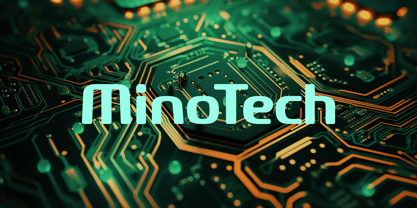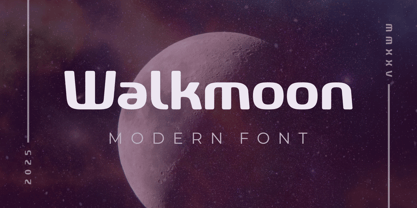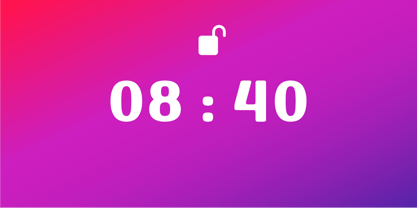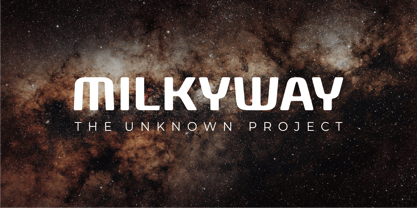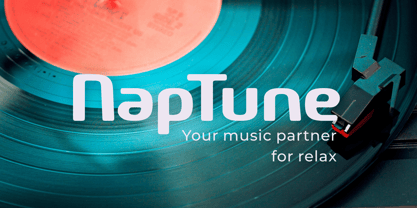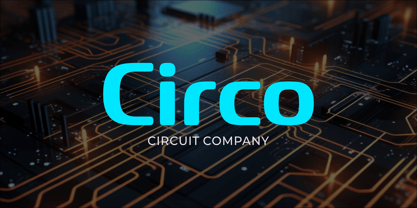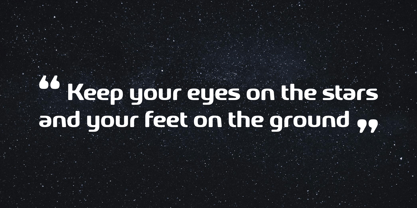
Walkmoon
The Walkmoon Font Family was designed by Anthonie Van Hayu and published by ARToni. Walkmoon contains 1 styles. More about this family
Walkmoon is a modern sans serif font. It's bold, elegant, and designed for branding and logo creation. The font features uniquely shaped alternatives, making it stand out in creative projects.